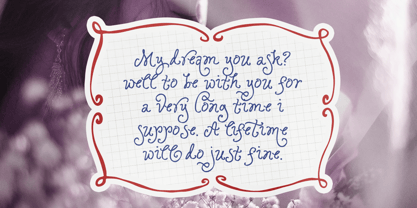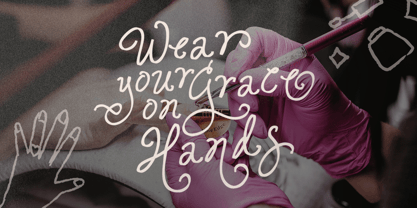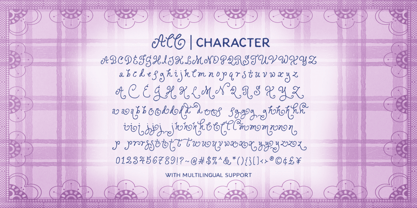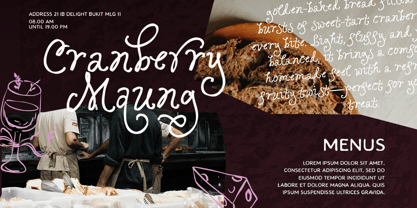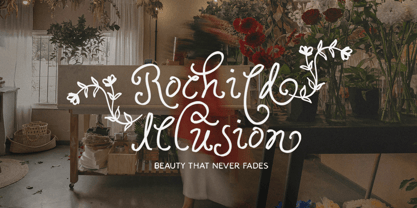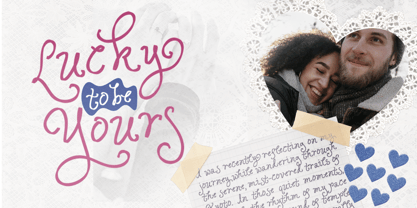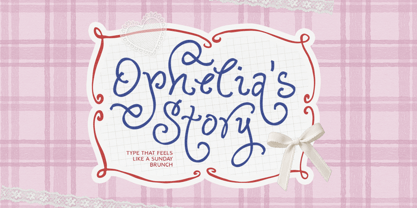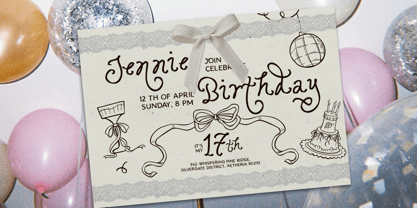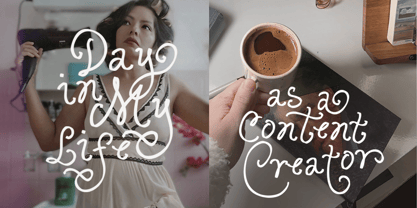
Ophelia Story
by Sarid Ezra
The Ophelia Story Font Family was designed by Sarid Ezra and published by Sarid Ezra. Ophelia Story contains 1 styles. More about this family
Ophelia Story is a charming handwritten script font that features soft, swirly strokes and a distinctly girly aesthetic. Its playful and elegant style makes it a perfect choice for a wide range of creative projects, including branding, logotypes, inspirational quotes, social media graphics, and even wedding invitations. The font comes with beautiful swirly alternates that add extra flair and personality, helping your designs look more eye-catching and unique. In addition, Ophelia Story supports multiple languages, making it a versatile option for designers working on international or multilingual projects.
Designers: Sarid Ezra
Foundry: Sarid Ezra